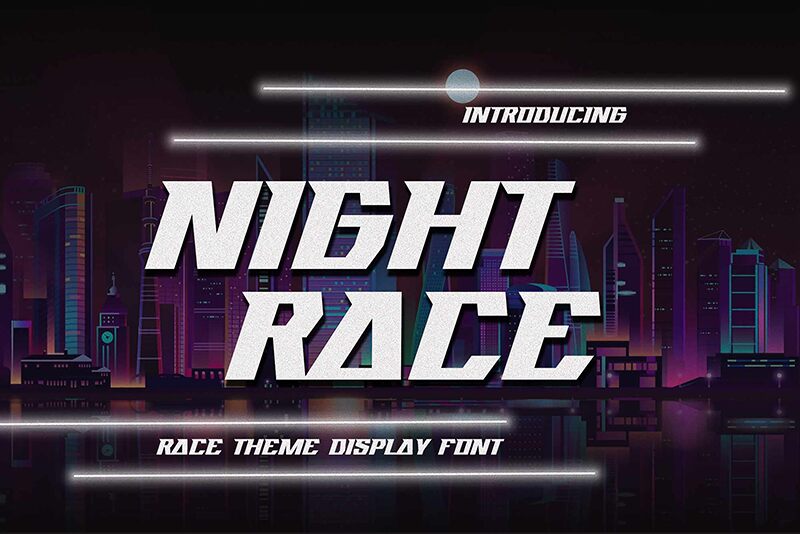
Nightrace
Nightrace, designed by Gassstype, is a display font that boasts an undeniably futuristic style with its semi-light weight that exudes sleekness and modernity. The sharp angles and clean lines suggest speed and precision, making it an excellent choice for projects that aim to convey innovation, tech-savviness, or forward-thinking ideals. Its aesthetic appeal lies in its minimalist yet bold design which enables it to stand out on posters, branding materials, and digital platforms alike.
With Nightrace's contemporary vibe and versatile appearance, designers have access to a font that promises to add a cutting-edge look to their creative endeavors.